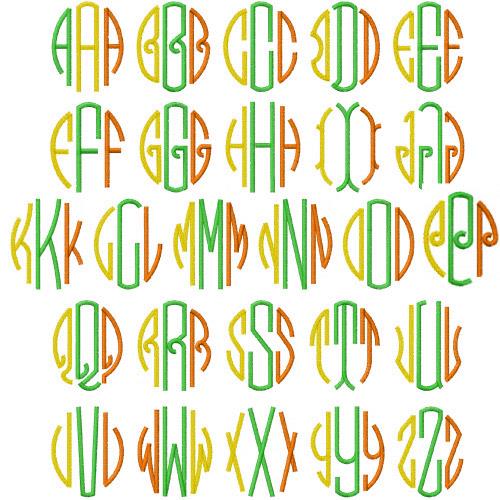
Embroidery Patterns is happy to present Circle Monogram machine embroidery font which has Decorative monogram embroidery font with bold outlines, showcasing vibrant colors. Ideal for personalized projects on tote bags and jackets. Available in PES, DST & 8 other formats. included. If you would like to view more embroidery fonts and alphabets please search our embroidery fonts page.